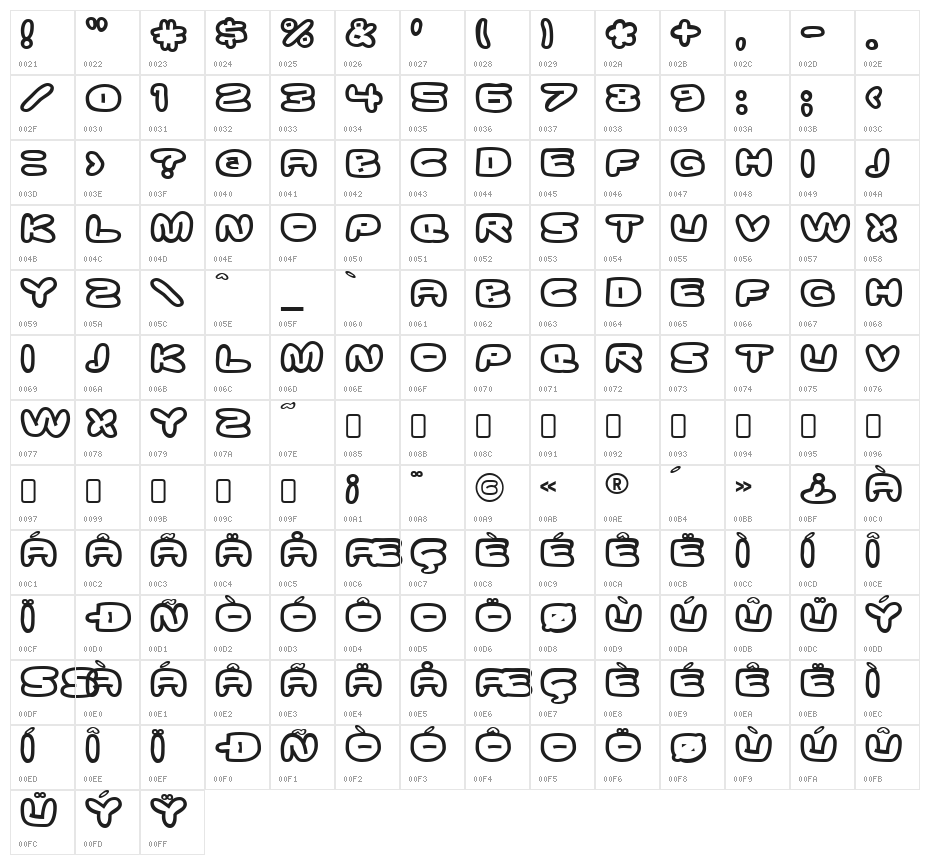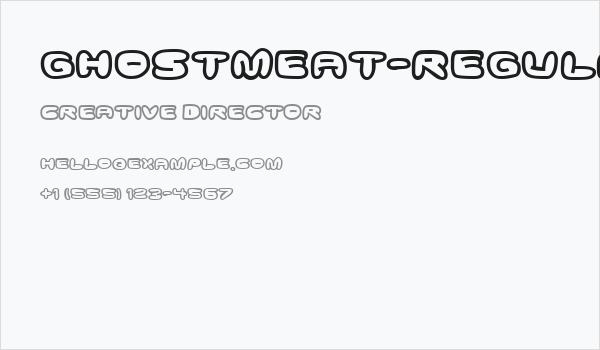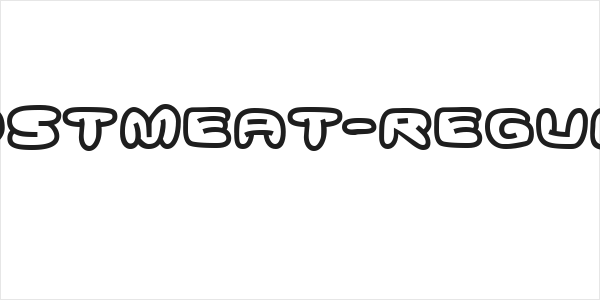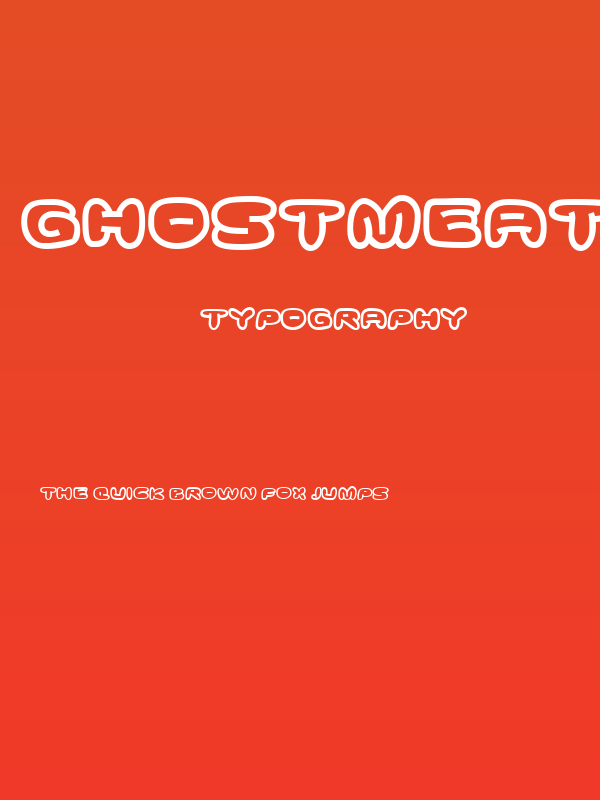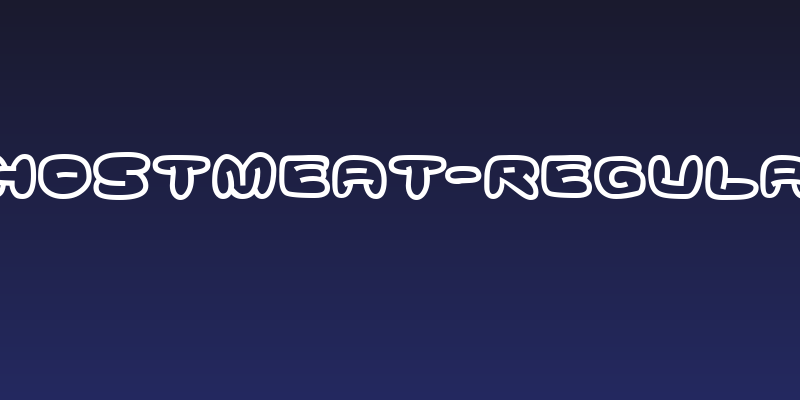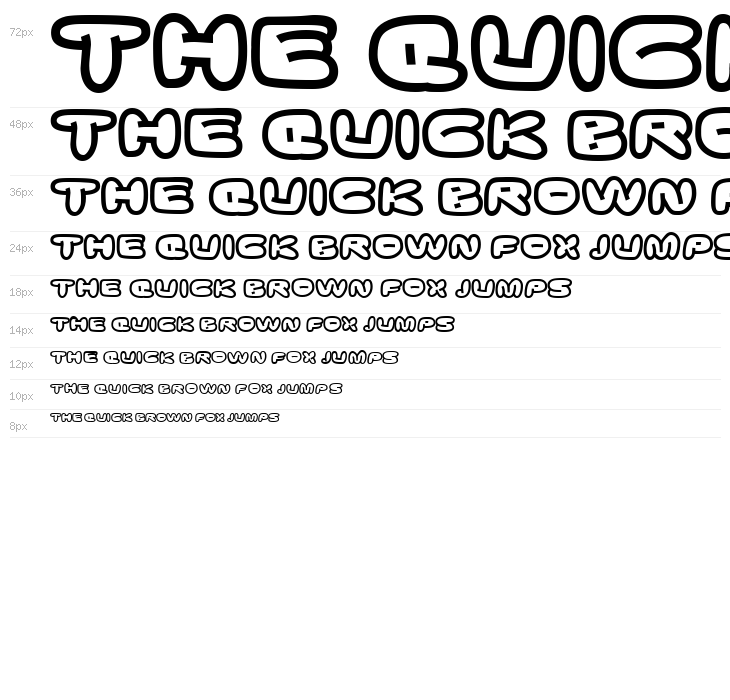
Ghostmeat-Regular Font
Ghostmeat-Regular Description
This font features a playful and bold design with thick, rounded outlines that create a bubble-like appearance. The characters are evenly spaced, providing a balanced and cohesive look. The uppercase and lowercase letters maintain a consistent style, with smooth curves and a friendly aesthetic. The numbers and special characters follow the same design principles, ensuring uniformity across all glyphs. This font's unique style makes it stand out, offering a fun and engaging visual experience.
| Proposed Projects | Ideal for children's books, playful branding, party invitations, or any project requiring a fun and lively typeface. |